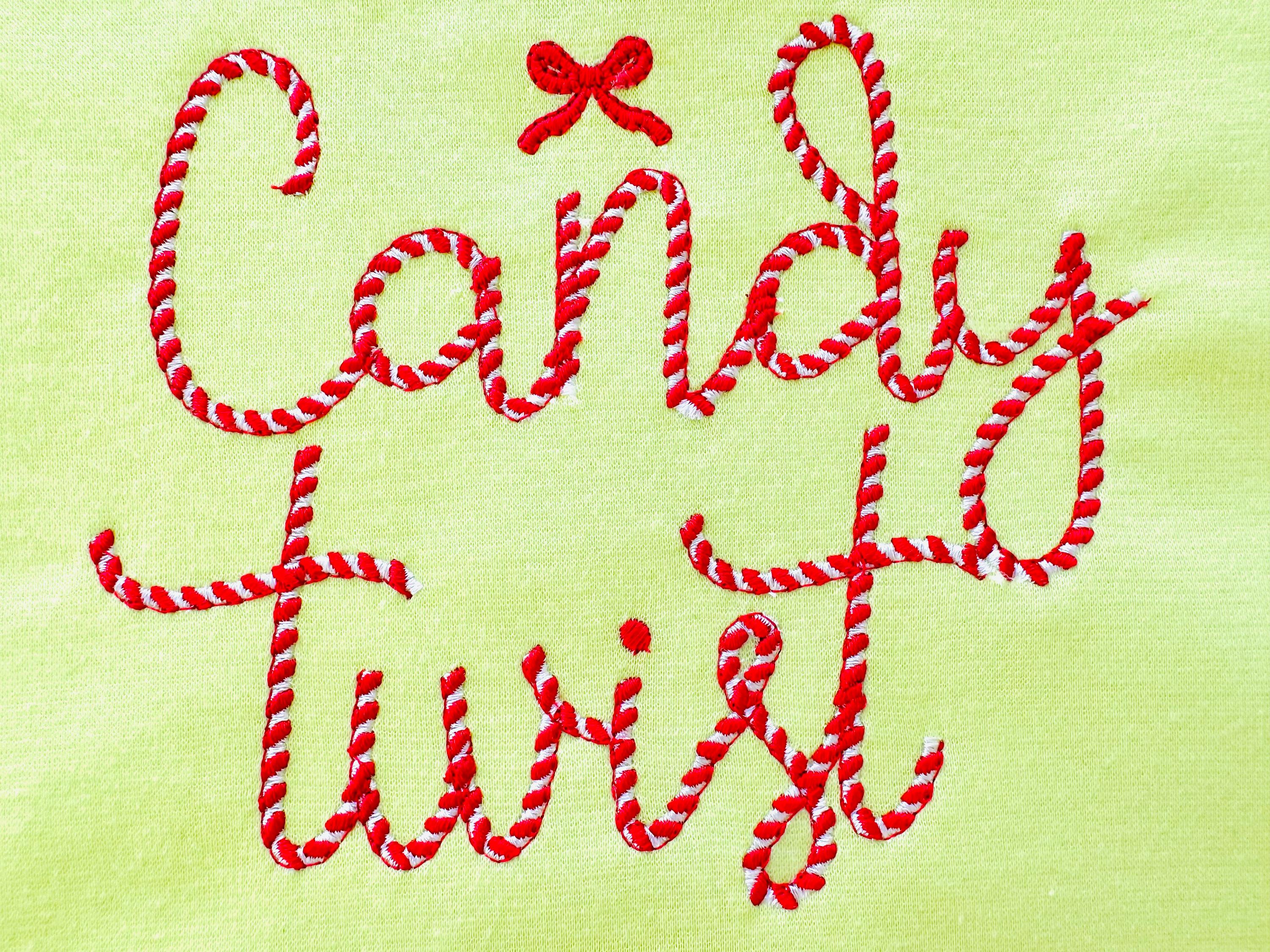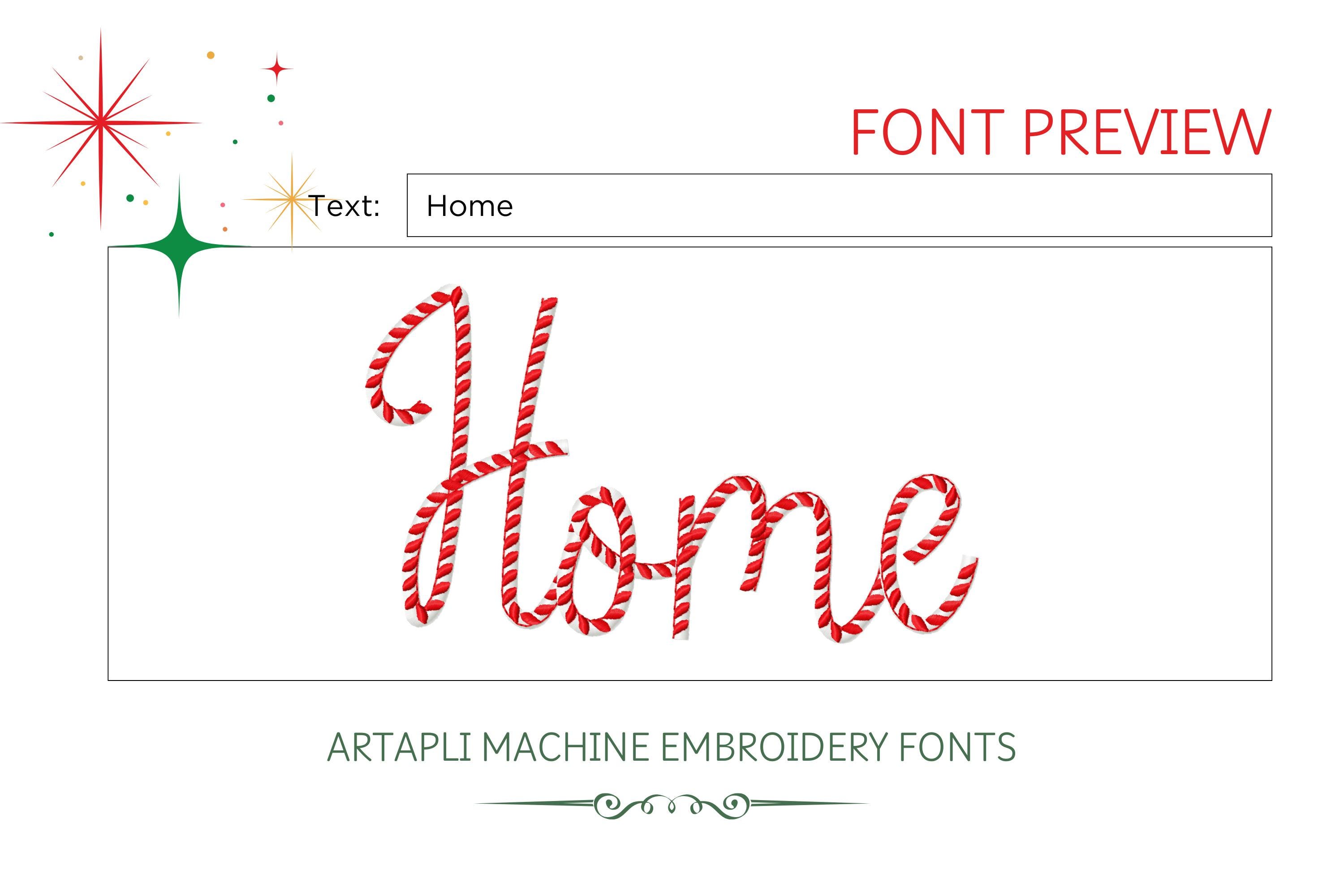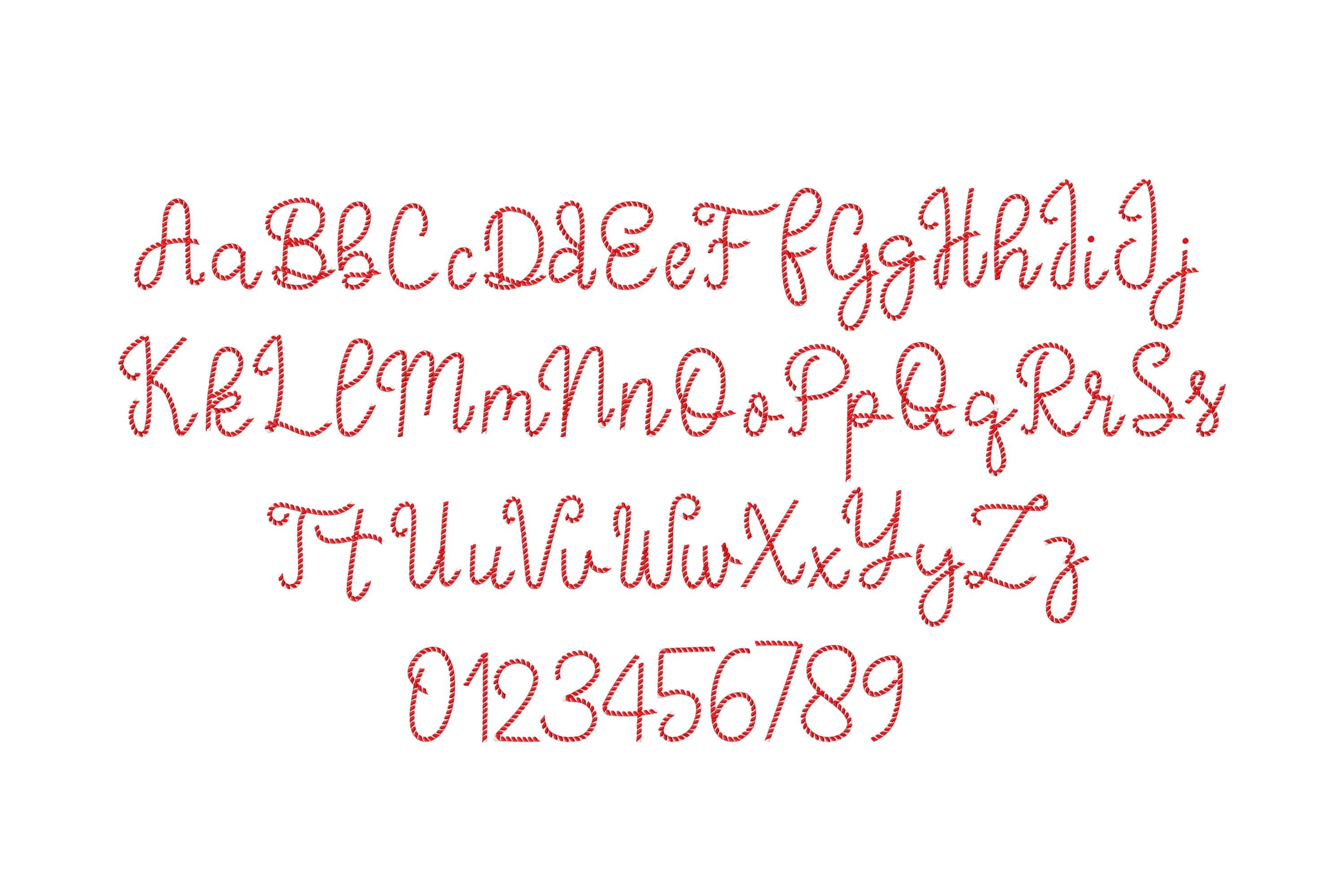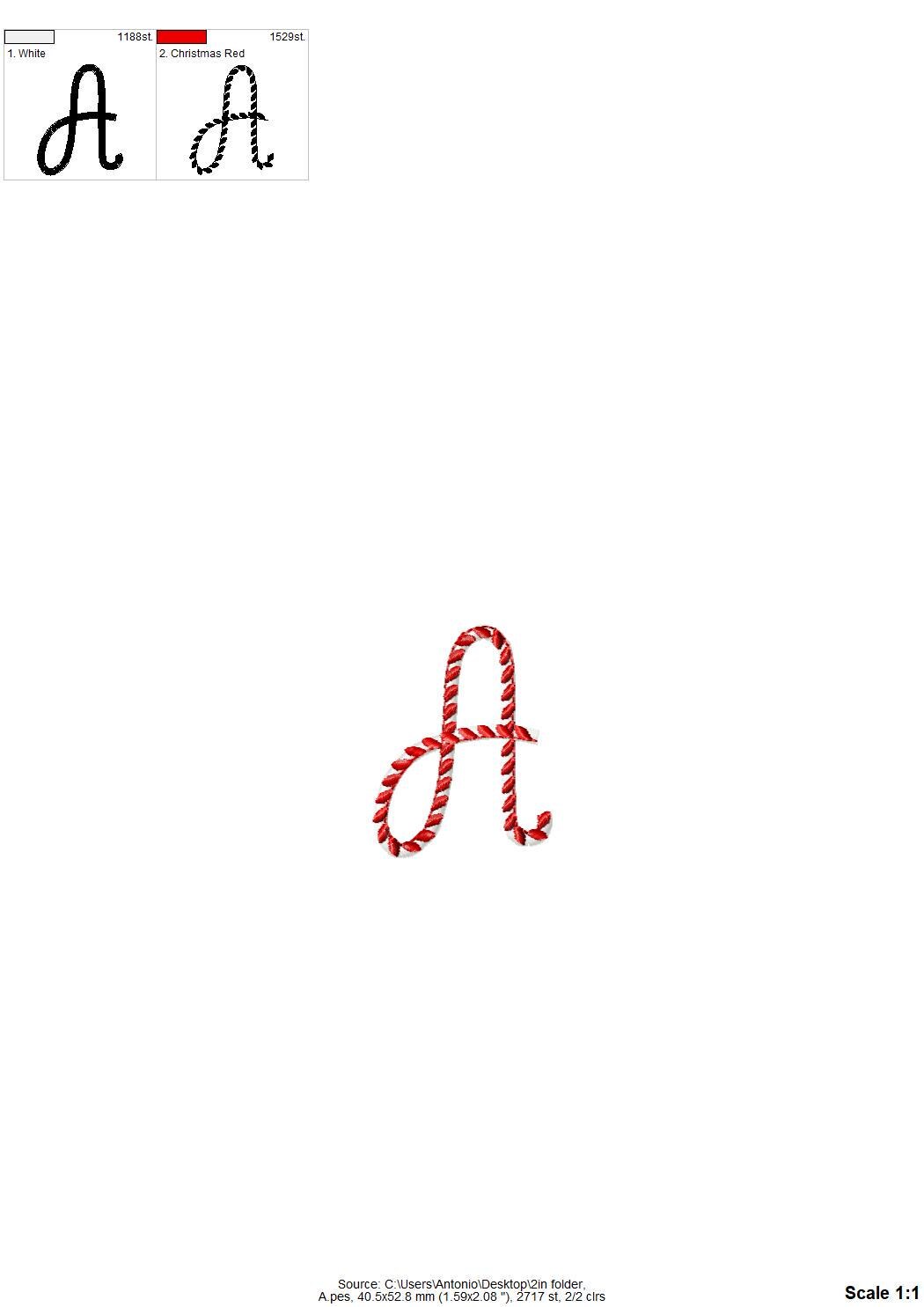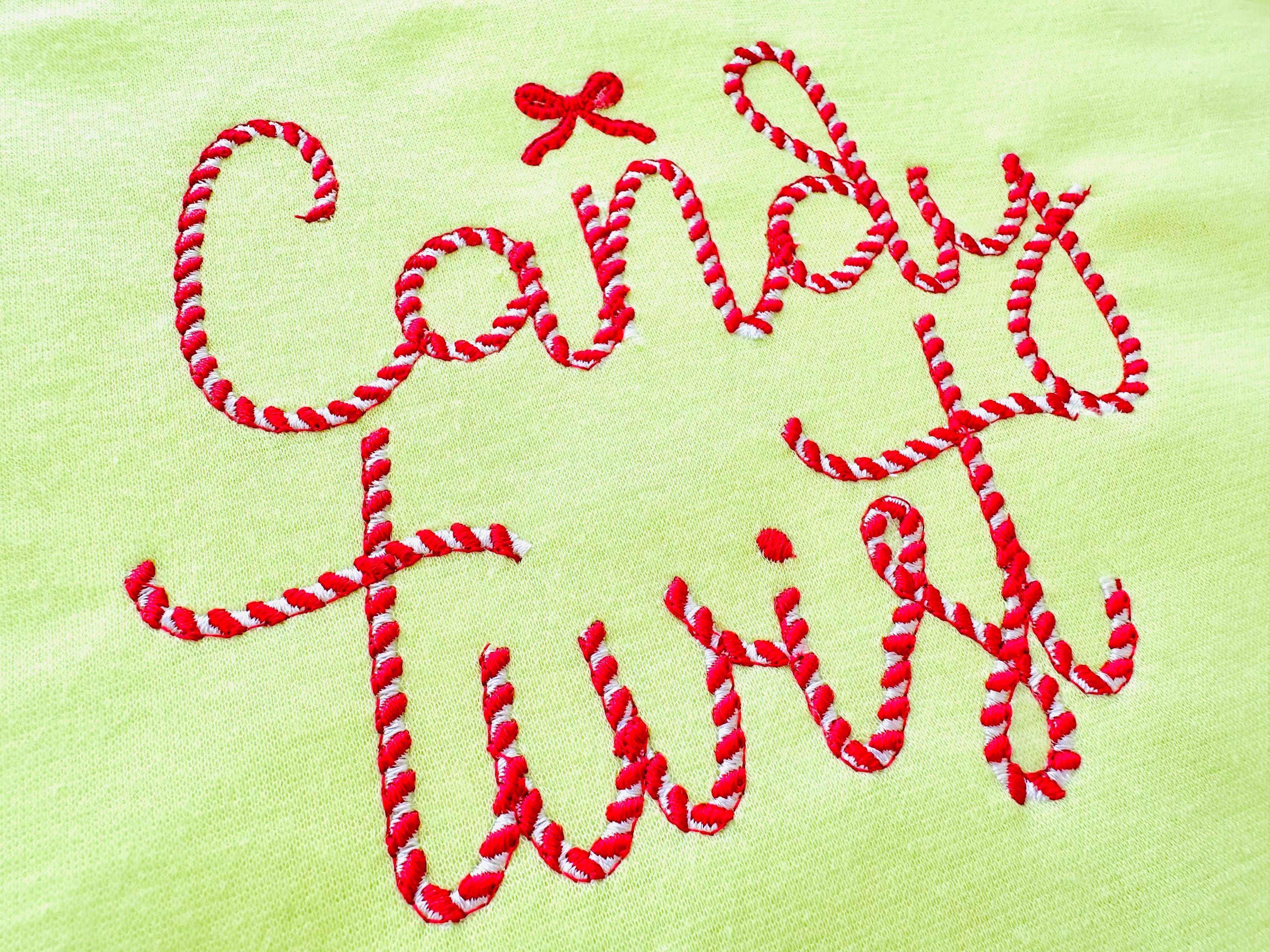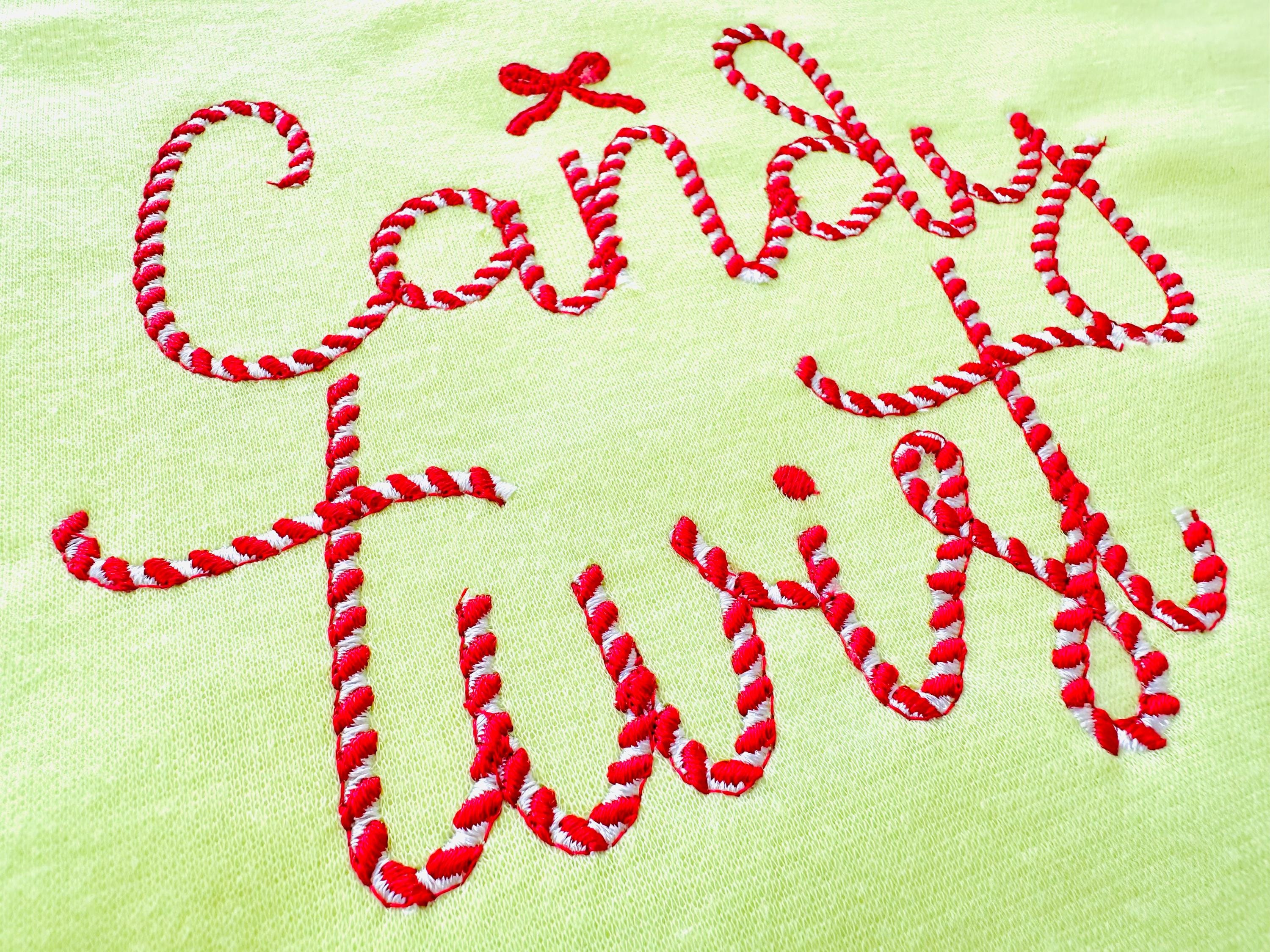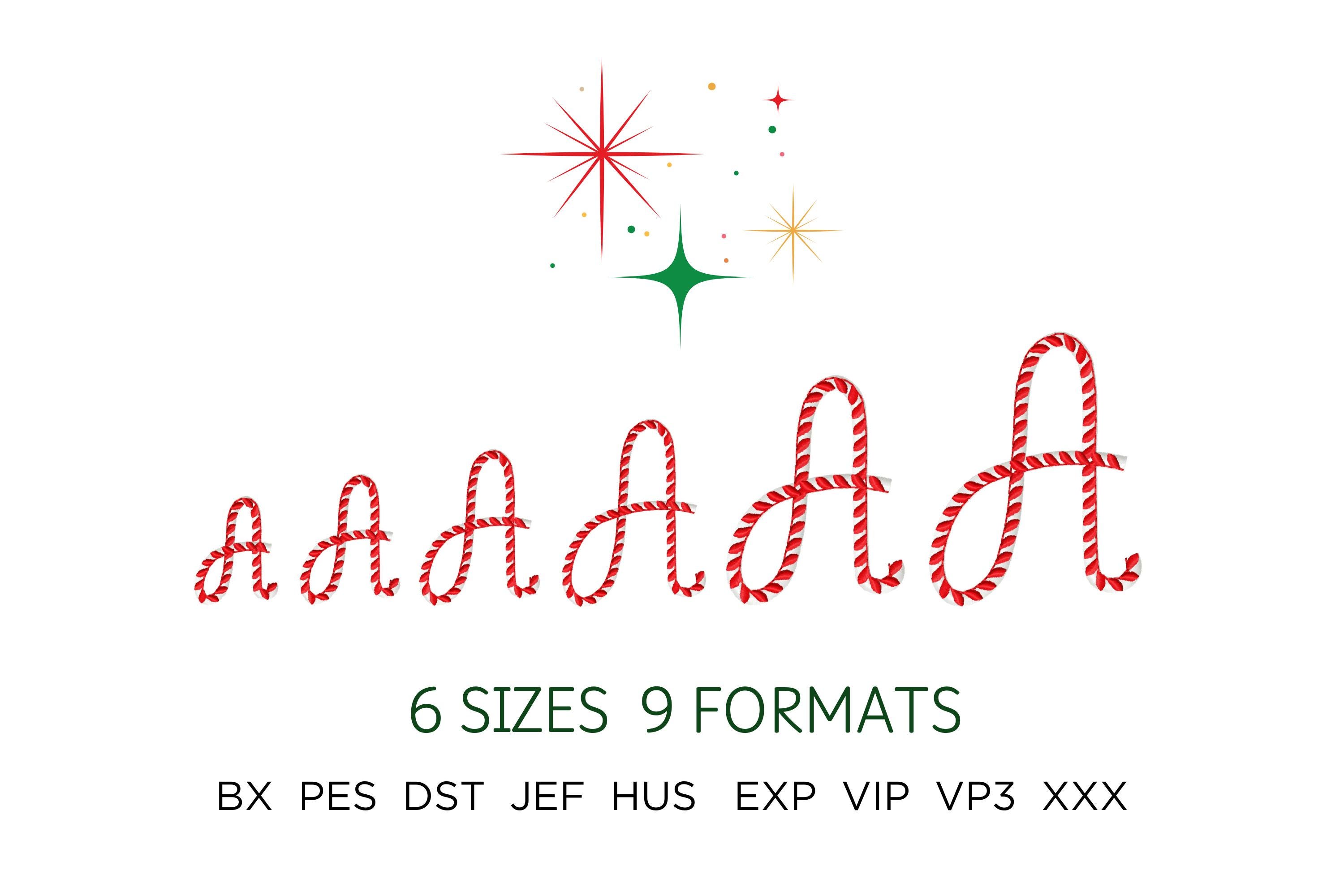
Candy Cane Twist FONT candy stitch 2 colors alphabet letters numbers Christmas monogram machine embroidery designs sizes 1.4 up to 3.7 inch
Entire alphabet has uppercase and lowercase letters Aa-Zz, and numbers 0-9.